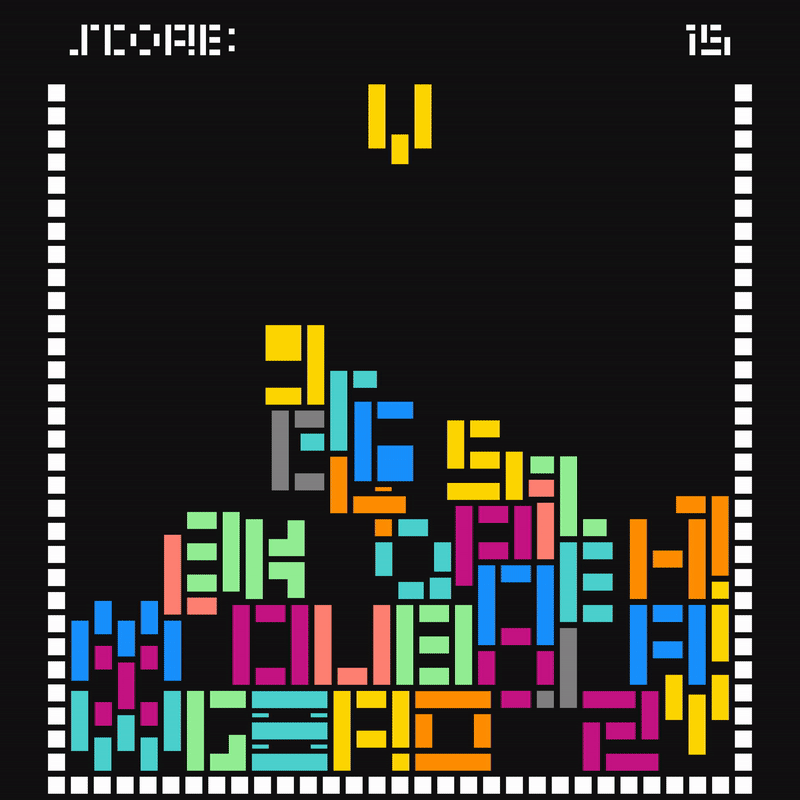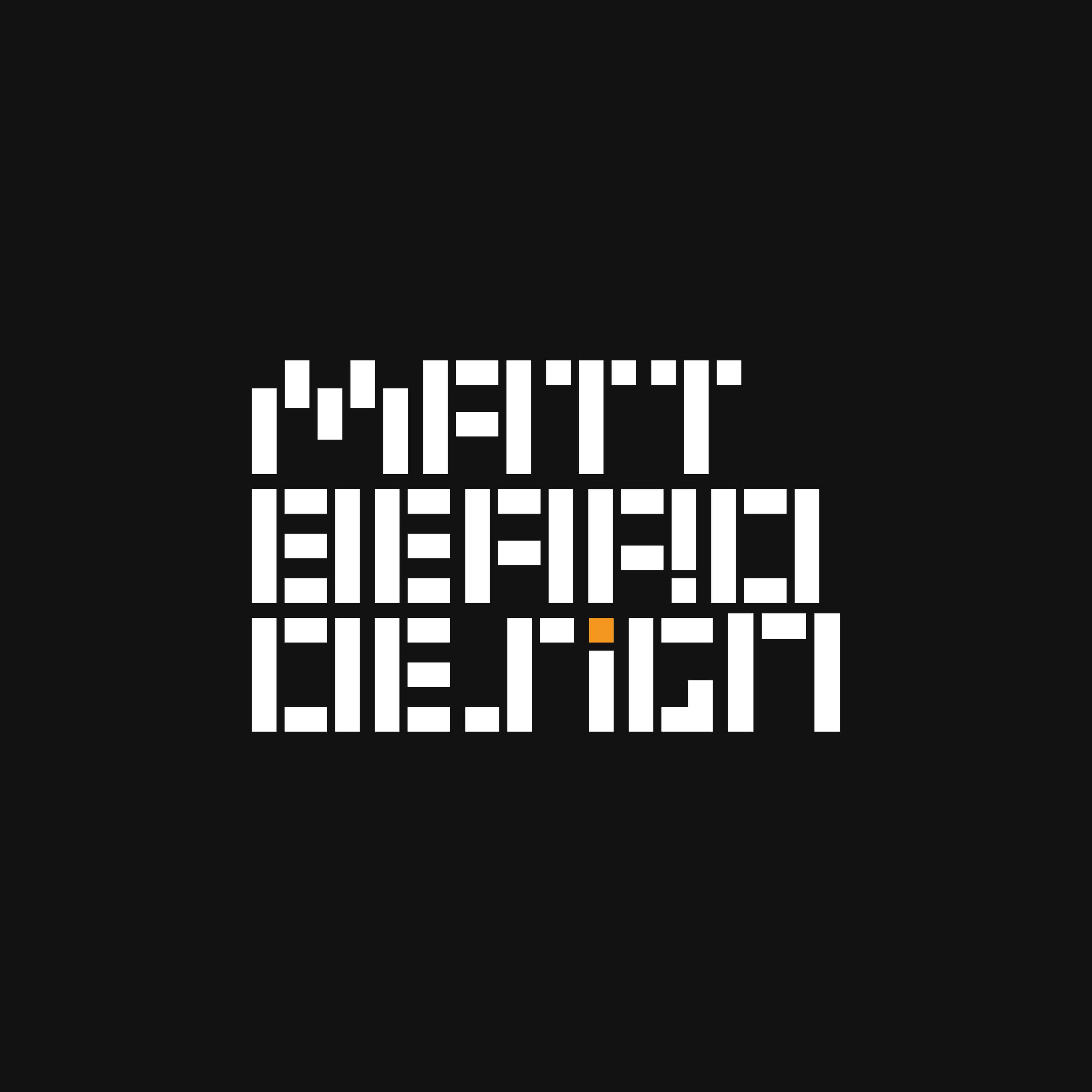
BLOK Typeface
The Blok typeface is a geometric tile-like font using all caps. Taking visual reference from the globally successful arcade game Tetris, the type presents a vintage yet fluorescent feel. This makes for a significant impact on any piece of design. -